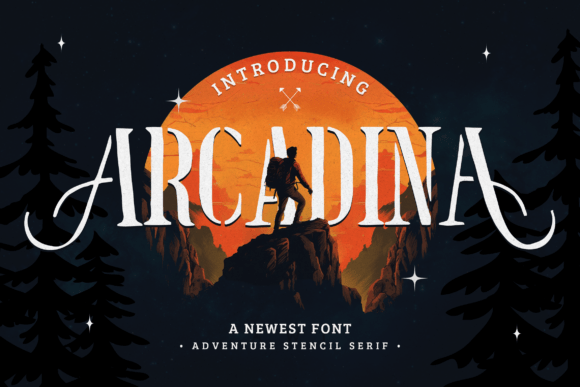
Introducing Arcadina Font: The Ultimate Choice for Bold and Elegant Designs
Are you looking for a font that can add a touch of bold elegance and rugged charm to your designs? Look no further than Arcadina, an adventurous stencil serif font that is inspired by vintage travel posters and expedition-style typography. With its cut-out stencil details, sharp serifs, and dynamic letterforms, Arcadina is the perfect choice for creatives who want to evoke a sense of bold discovery and classic sophistication in their work.
The Inspiration Behind Arcadina
Arcadina is inspired by the golden age of travel and exploration, when vintage posters and expedition-style typography reigned supreme. The font’s design is reminiscent of the bold and colorful posters that adorned the walls of train stations and travel agencies, beckoning people to explore the world. With its stencil details and sharp serifs, Arcadina captures the spirit of adventure and discovery that defined this era.
Key Features of Arcadina Font
- Cut-out stencil details: Arcadina’s stencil details give it a unique and rugged look that is perfect for designs that require a sense of boldness and adventure.
- Sharp serifs: The font’s sharp serifs add a touch of elegance and sophistication to its overall design, making it perfect for high-end brands and luxury products.
- Dynamic letterforms: Arcadina’s letterforms are designed to be dynamic and expressive, with a sense of movement and energy that is perfect for headlines and titles.
Perfect for a Variety of Design Applications
Arcadina is a versatile font that can be used in a variety of design applications, including:
- Headlines: Arcadina’s bold and dynamic letterforms make it perfect for headlines and titles that require a sense of impact and drama.
- Logos: The font’s unique stencil details and sharp serifs make it a great choice for logos that require a sense of boldness and sophistication.
- Posters: Arcadina’s vintage-inspired design makes it perfect for posters that require a sense of nostalgia and adventure.
- Book covers: The font’s elegant and sophisticated design makes it a great choice for book covers that require a sense of luxury and refinement.
- Packaging: Arcadina’s bold and dynamic design makes it perfect for packaging that requires a sense of energy and excitement.
Why Choose Arcadina Font?
There are many reasons why Arcadina font is the perfect choice for creatives who want to add a touch of bold elegance and rugged charm to their designs. Here are just a few:
- Unique and distinctive design: Arcadina’s stencil details and sharp serifs give it a unique and distinctive look that is sure to stand out in any design.
- Versatile and adaptable: The font’s versatility and adaptability make it perfect for a wide range of design applications, from headlines and logos to posters and book covers.
- Elegant and sophisticated: Arcadina’s elegant and sophisticated design makes it perfect for high-end brands and luxury products that require a sense of refinement and luxury.
Tips for Using Arcadina Font
Here are a few tips for using Arcadina font in your designs:
- Use it boldly: Arcadina font is designed to make a statement, so don’t be afraid to use it boldly and prominently in your designs.
- Experiment with colors: The font’s vintage-inspired design makes it perfect for use with a variety of colors and textures, so don’t be afraid to experiment and find the perfect combination for your design.
- Pair it with other fonts: Arcadina font can be paired with a variety of other fonts to create a unique and interesting design, so don’t be afraid to experiment and find the perfect combination for your project.
In conclusion, Arcadina font is a unique and versatile font that is perfect for creatives who want to add a touch of bold elegance and rugged charm to their designs. With its cut-out stencil details, sharp serifs, and dynamic letterforms, Arcadina is the perfect choice for a wide range of design applications, from headlines and logos to posters and book covers. So why wait? Try Arcadina font today and see the difference it can make in your designs!